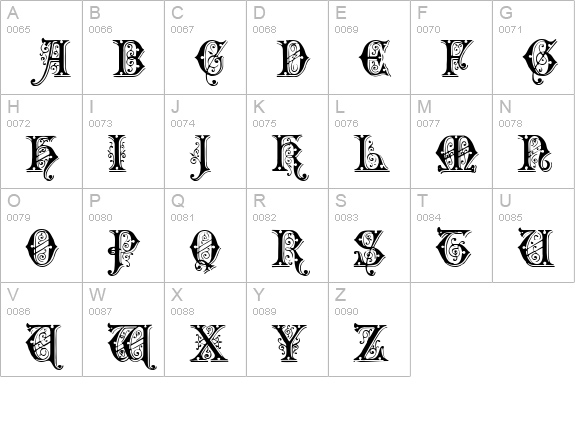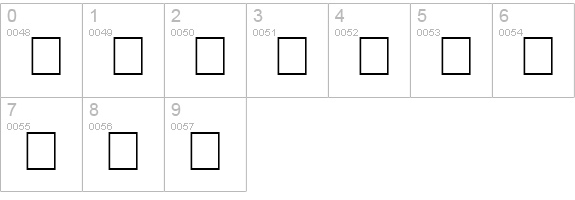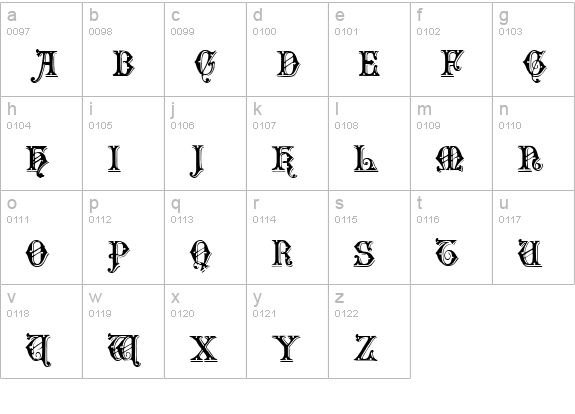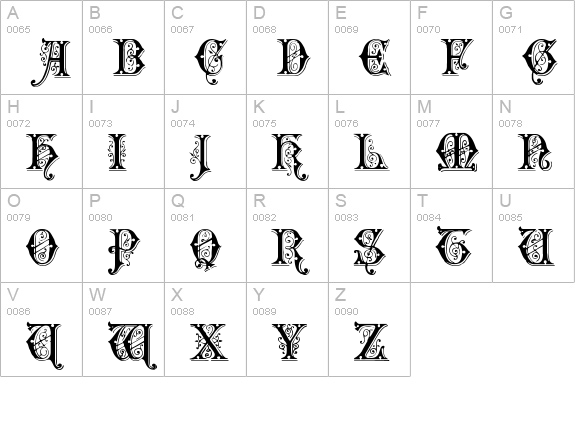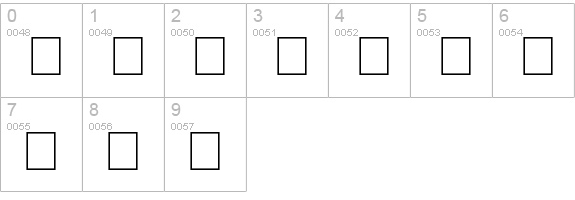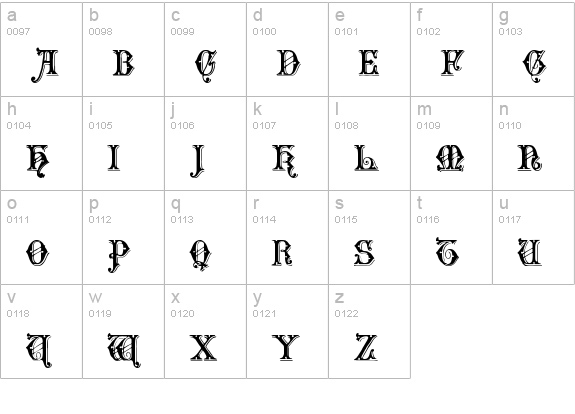
EmporiumCapitals Font Details
Introducing EmporiumCapitals, a majestic and sophisticated font that exudes elegance and charm. With its bold and distinguished letterforms, this typeface is perfect for adding a touch of luxury to your designs. Each letter is meticulously crafted with attention to detail, making EmporiumCapitals a standout choice for headlines, titles, and branding projects. What sets EmporiumCapitals apart is not only its stunning design but also the fact that it is available for free download at FontsMarket.com. This means you can bring a touch of sophistication to your projects without any cost. Don't miss out on this opportunity to elevate your designs with the timeless beauty of EmporiumCapitals. Download it now and let your creativity soar!